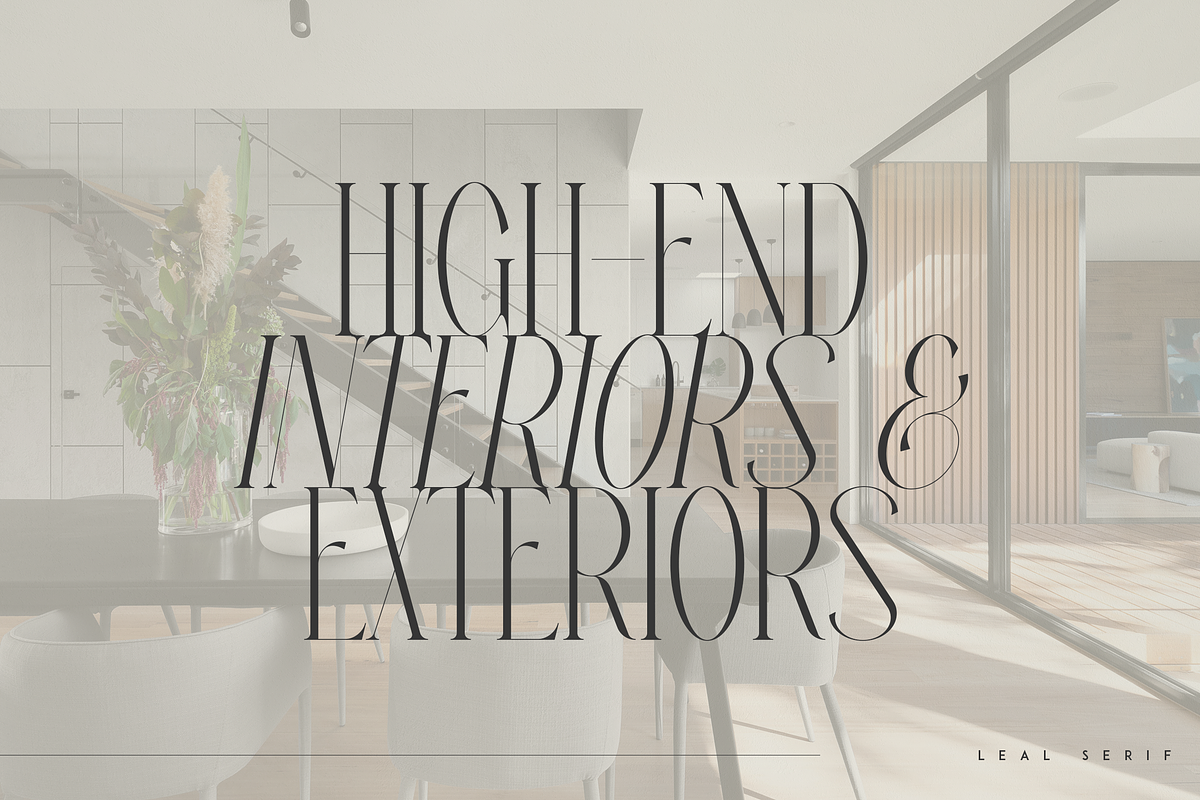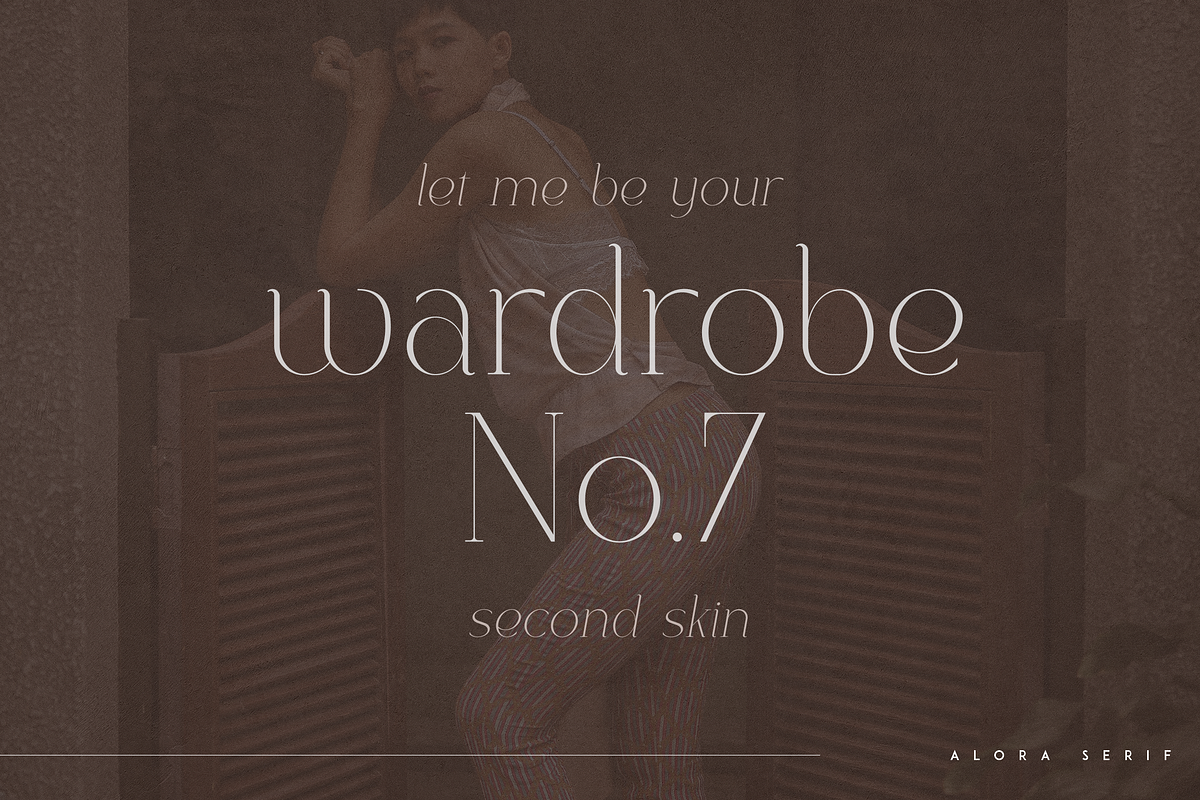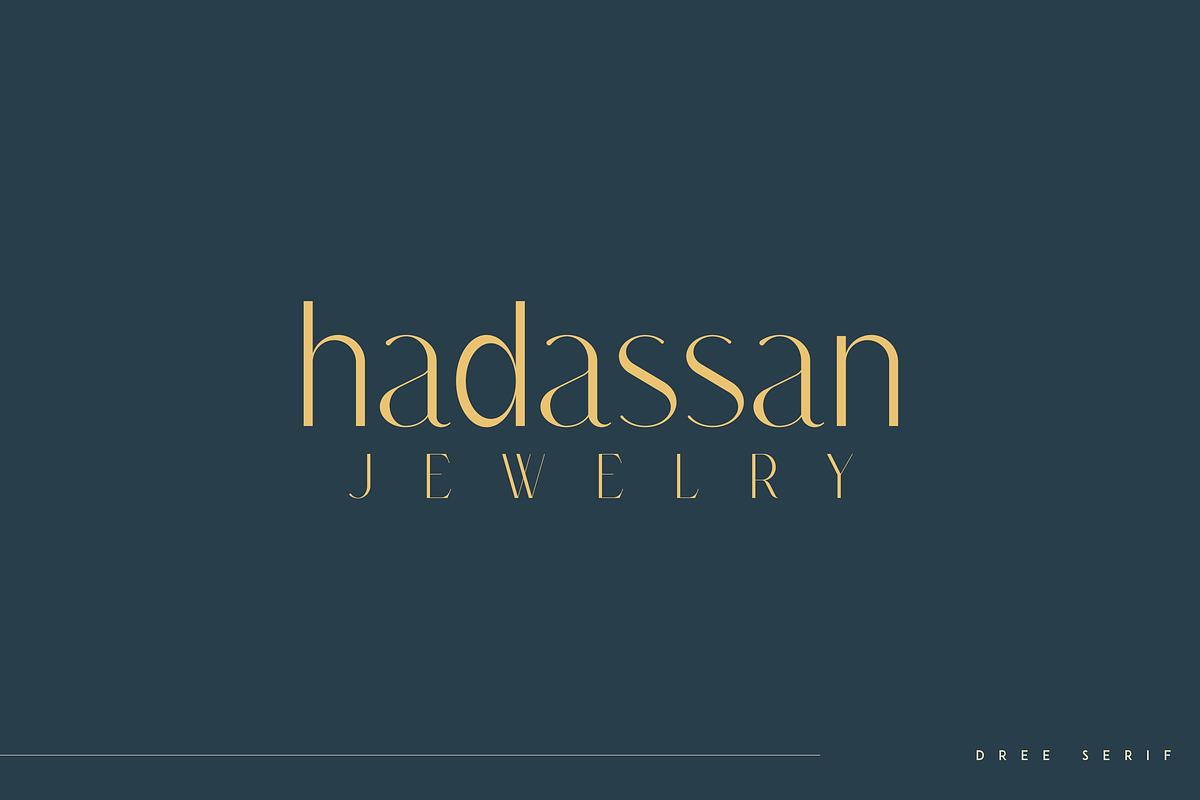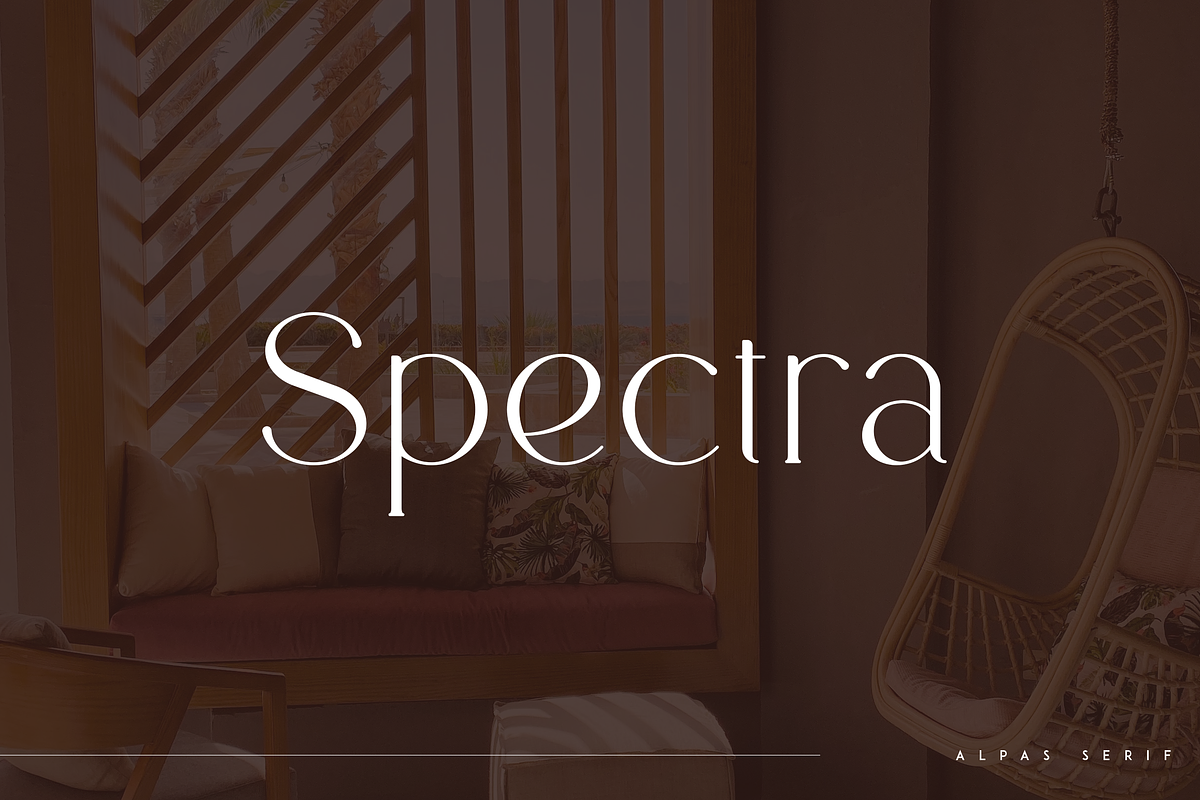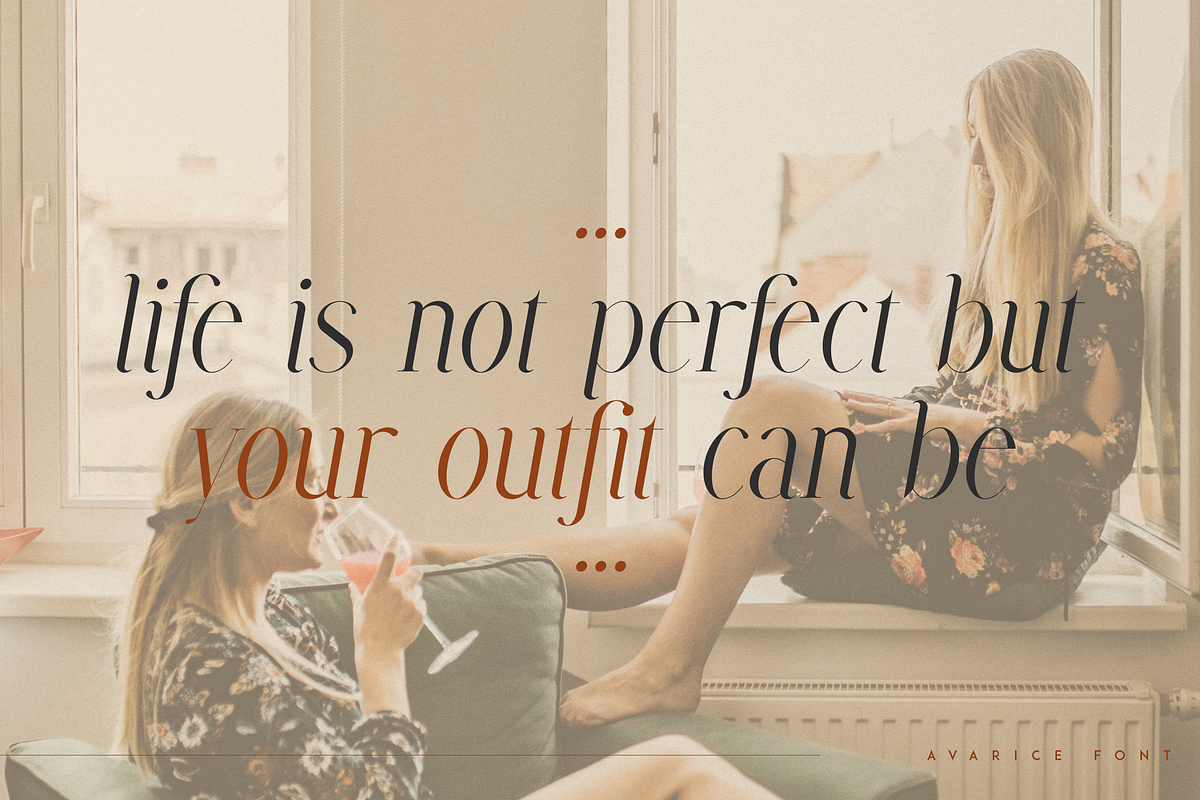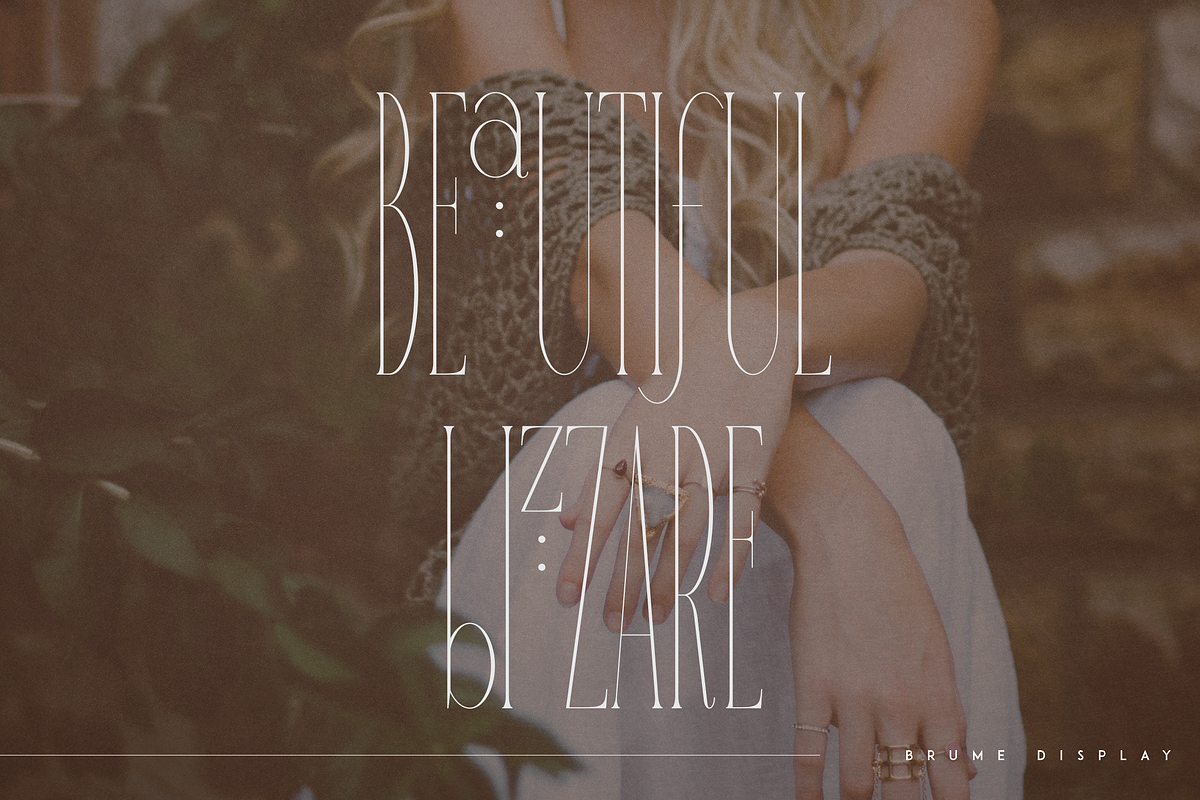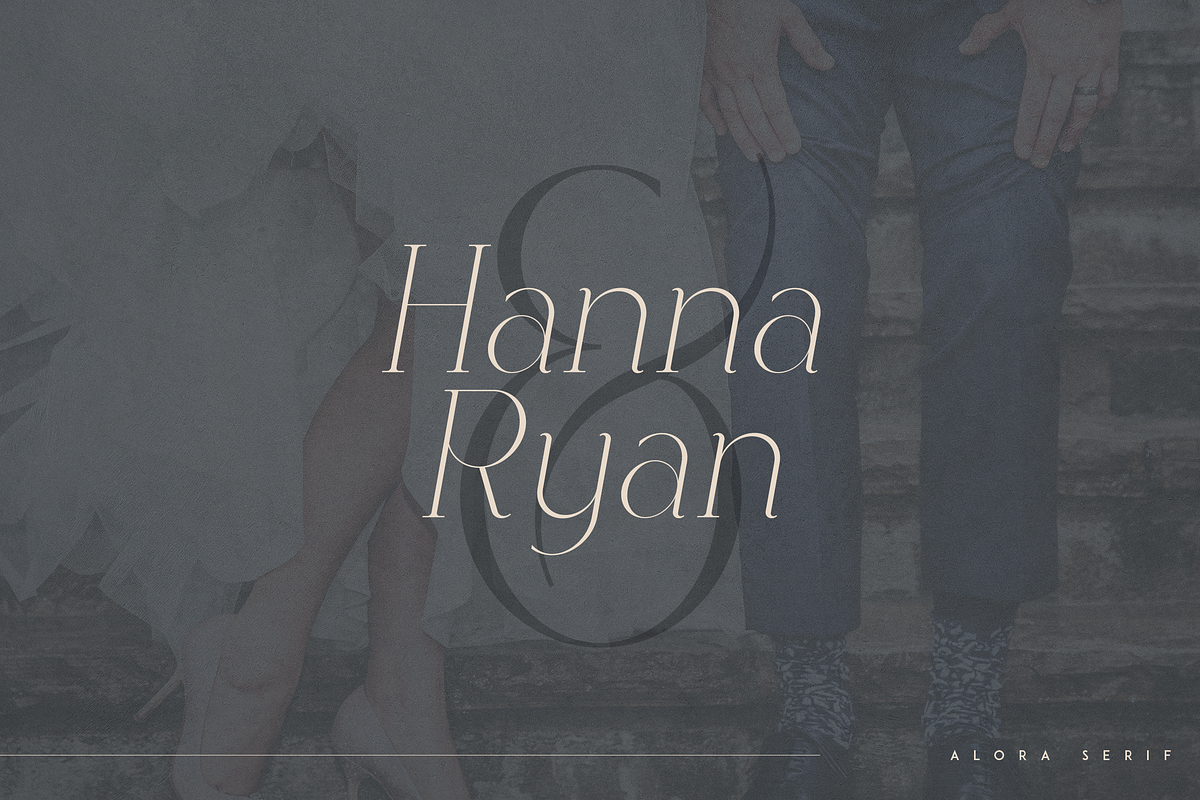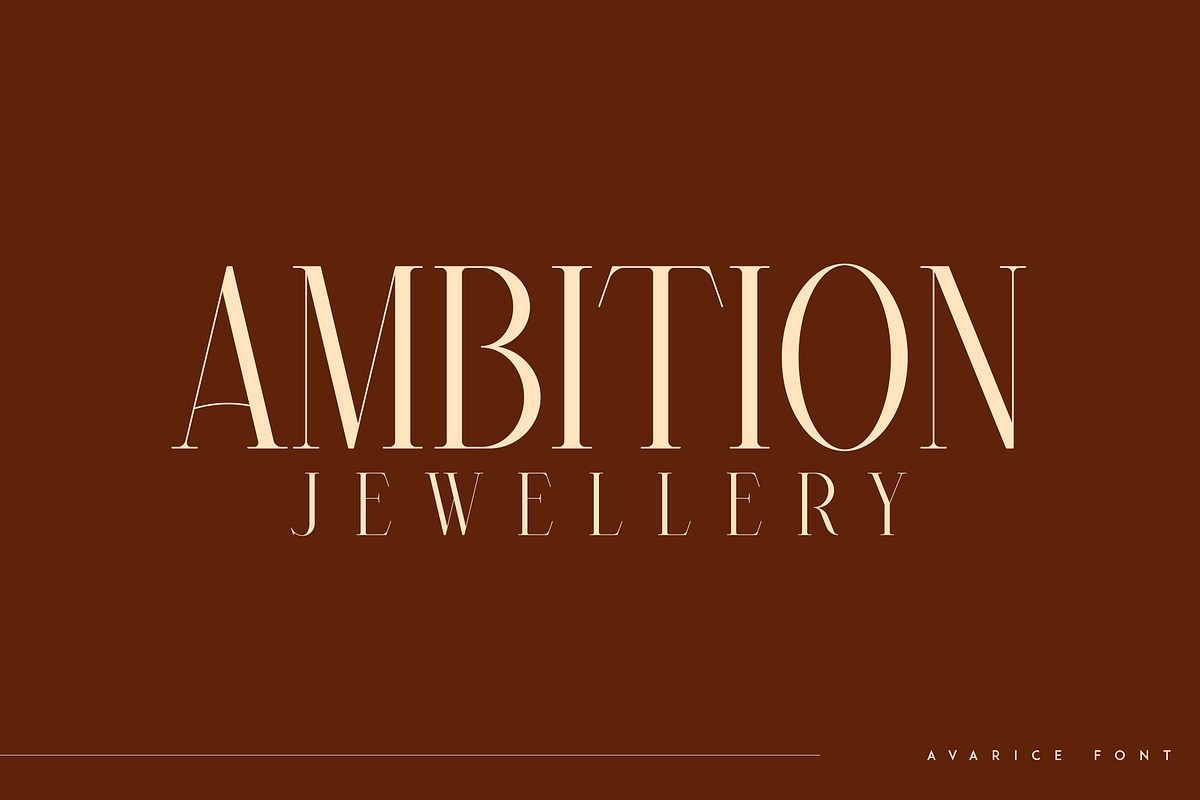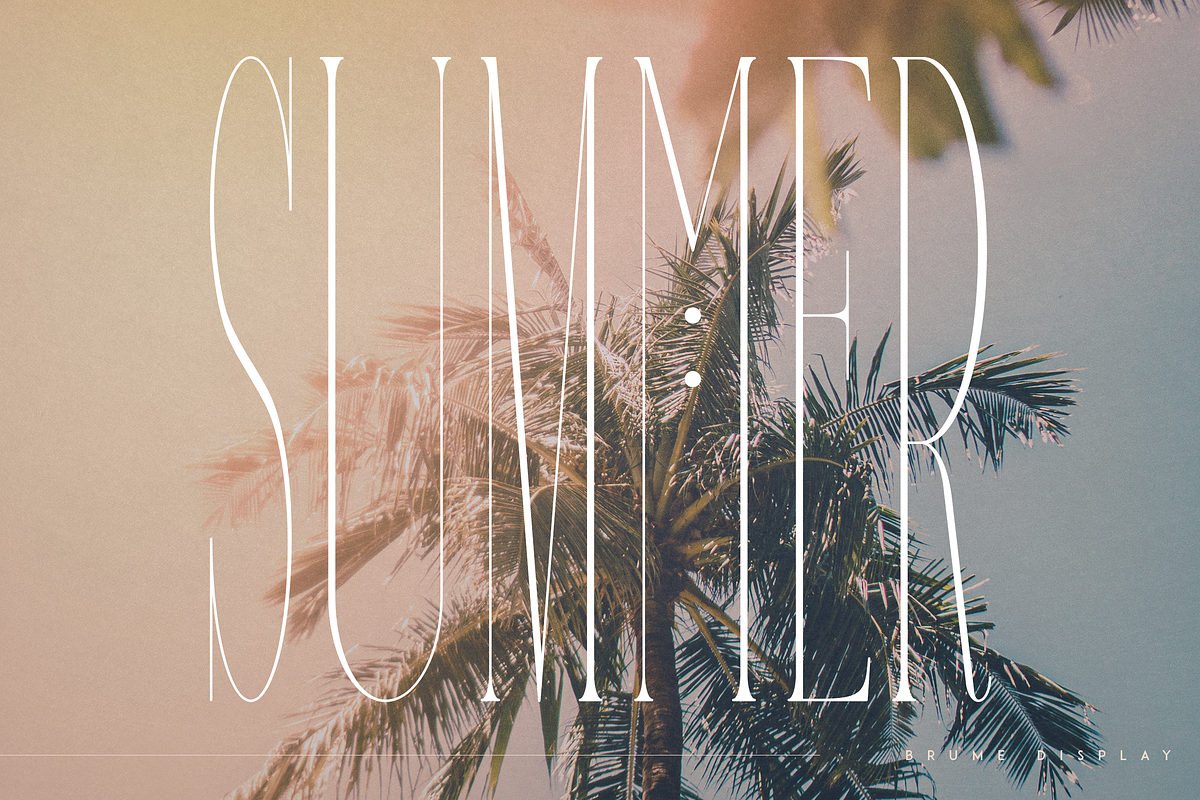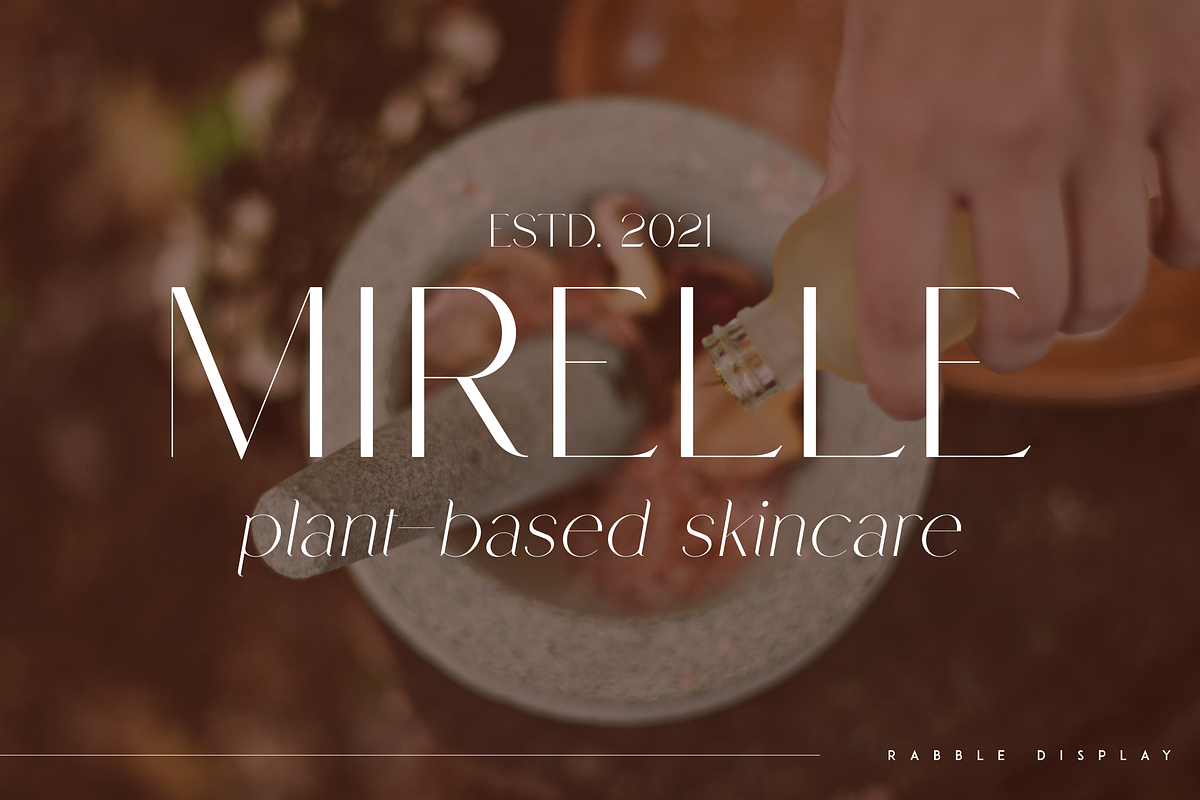
Introducing Font Bundle Vol.3 - 30 fonts in 10 typefaces
Step up your creative game with the dazzling Font Bundle Vol.3! This collection is sure to help you make an impact in whatever project you're working on - from luxury branding campaigns, fashion magazine headlines and custom monograms for a special wedding invitation, to home-ware designs or just adding stylish text embellishment over any background image. With 30 of our most elegant fonts across 10 versatile typefaces as well as multi-lingual support included within this bundle, it's never been easier to take your projects up several classy notches!
- Tweedle - Display Typeface https://creativemarket.com/OnlyFonts/7478858-Tweedle-Display-Typeface
- Alora - serif typeface https://creativemarket.com/OnlyFonts/7483362-Alora-serif-typeface-4-fonts
- Gleed - minimal serif typeface https://creativemarket.com/OnlyFonts/7489440-Gleed-minimal-serif-typeface
- Dree serif typeface https://creativemarket.com/OnlyFonts/7479270-Dree-serif-typeface-6-fonts
- Rabble display typeface https://creativemarket.com/OnlyFonts/7498233-Rabble-display-typeface
- Footle gentle serif font https://creativemarket.com/OnlyFonts/7514190-Footle-gentle-serif-font
- Brume - super long display font https://creativemarket.com/OnlyFonts/7515428-Brume-super-long-display-font
- Avarice - serif typeface https://creativemarket.com/OnlyFonts/7515448-Avarice-serif-typeface-4-fonts
- VOL2 bestseller Alpas - soft serif typeface https://creativemarket.com/OnlyFonts/7322281-Alpas-soft-serif-typeface